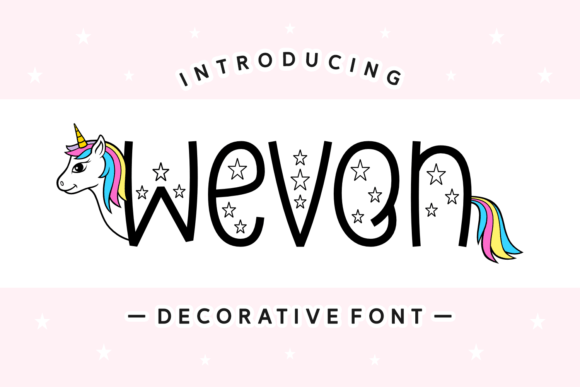
Unlock the magic of Wevon Font, an enchanting decorative font that will sprinkle a touch of whimsy into your design projects. Specially crafted for unicorn enthusiasts, Wevon is brimming with charm and delight, bringing your creative visions to life.
Picture this: your latest project, adorned with Wevon's playful characters, captivates the hearts of your audience. With each letter, you'll paint a story of enchantment, leaving a lasting impression that ignites imaginations.
Transport yourself to a world of pastel hues and sparkling rainbows, where unicorns dance among the stars. Wevon captures the essence of this magical realm, transforming your designs into captivating masterpieces. Its intricate details and whimsical curves evoke a sense of joy and wonder that will resonate with unicorn lovers of all ages.
Explore the boundless possibilities of Wevon. Design enchanting invitations that sparkle like fairy dust, create personalized baby onesies adorned with adorable unicorn motifs, or add a touch of magic to your website with captivating typography. Let Wevon unleash your creativity and take your designs to new heights.
With Wevon, you unlock a world of endless possibilities. Embrace the magic of unicorns and let your imagination soar. Join the ranks of creative visionaries who have discovered the power of Wevon, and transform your designs into works of art that captivate and inspire.
Don't miss out on the enchanting allure of Wevon Font. Dive into the realm of unicorns and rainbows, and let your creativity flourish like never before. Unleash the magic within and embark on a design journey that will leave your audience spellbound.